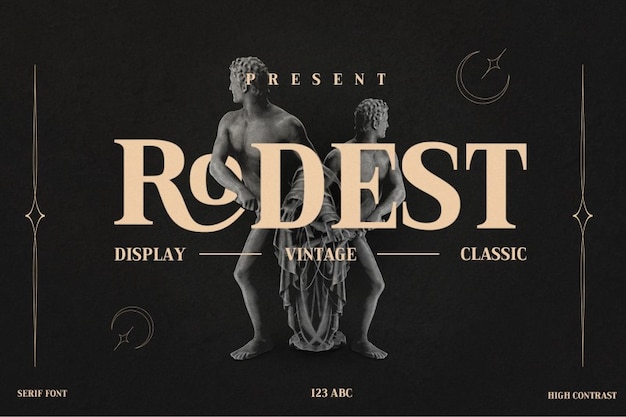
Rodest Font
Vintage, classic, and steeped in the essence of old-world charm, Rodest captures the nostalgia of bygone eras. Its timeless design pays homage to vintage typography, emanating an aura of historic elegance. Perfect for evoking a sense of classic sophistication, Rodest brings a touch of vintage allure to modern designs, blending the grace of the past with the versatility needed for contemporary visual compositions.